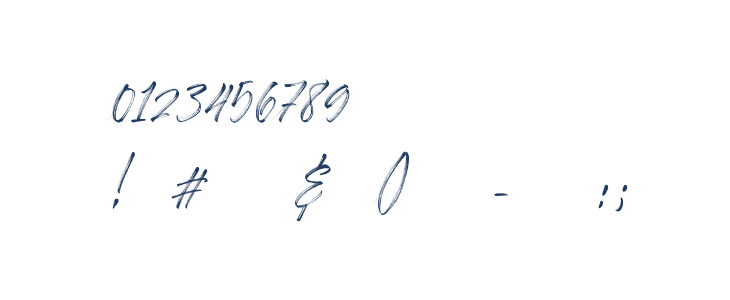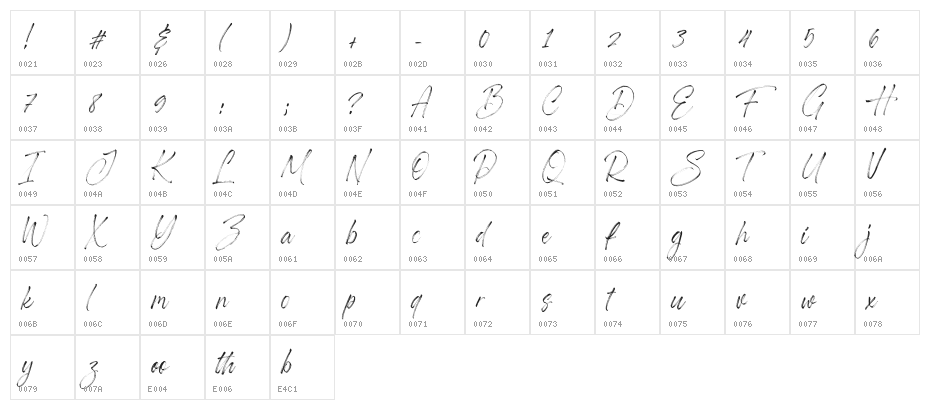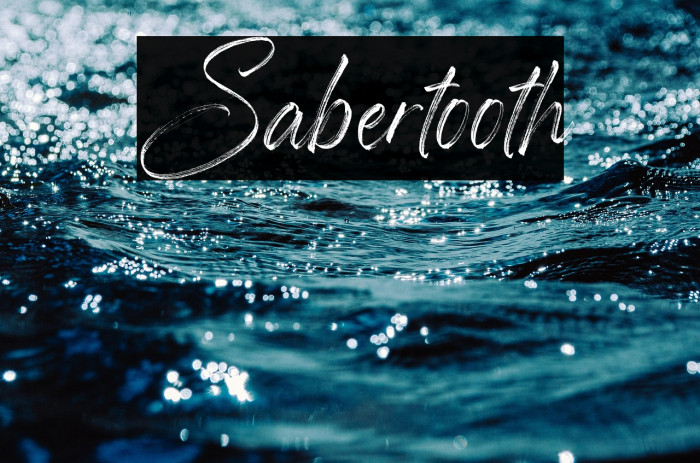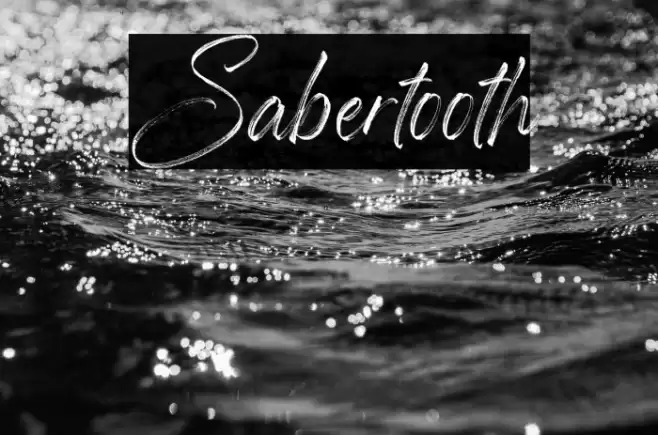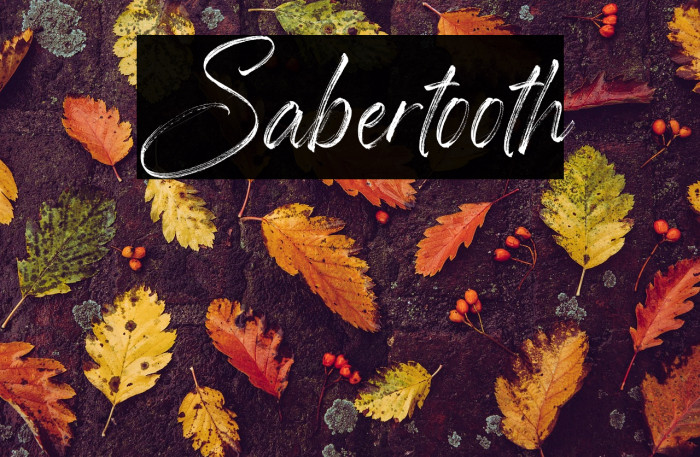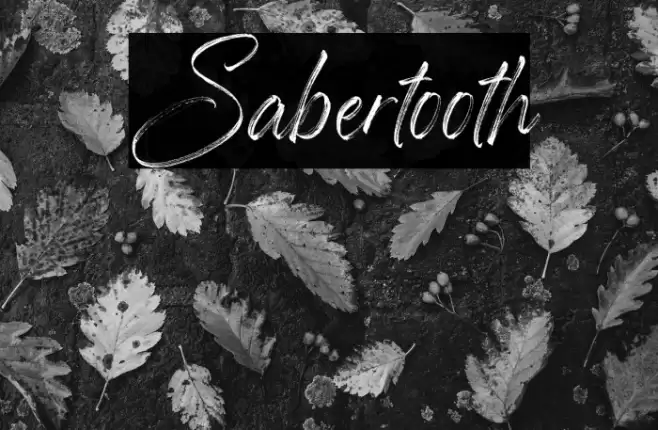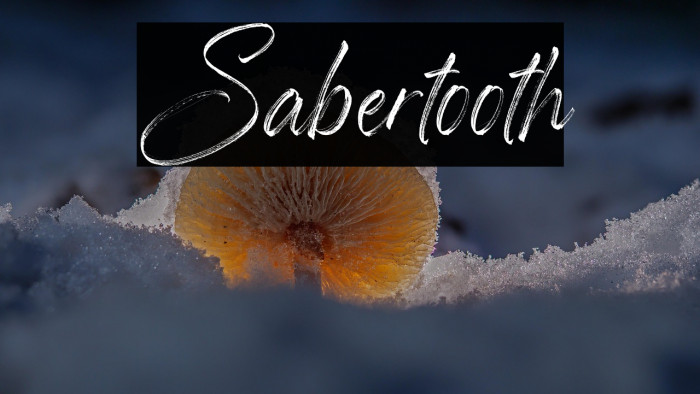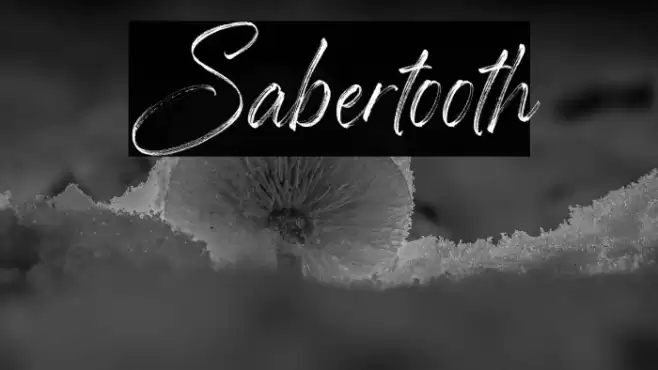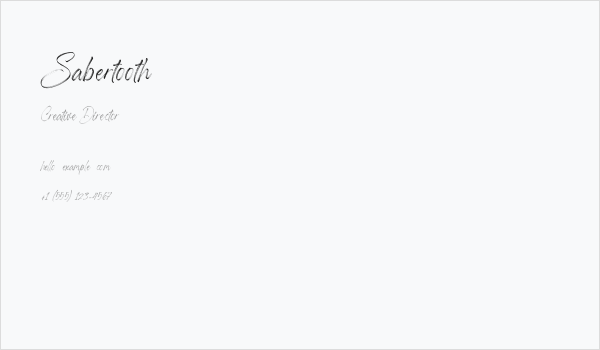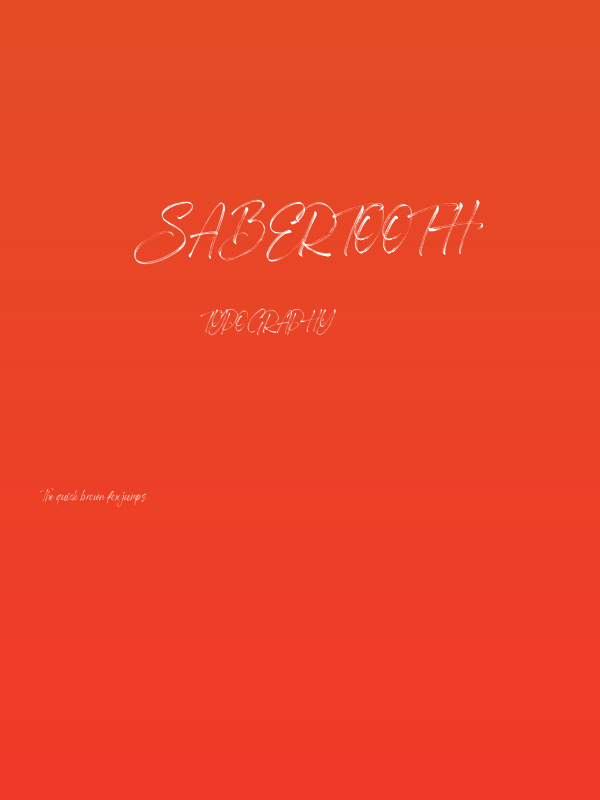
Sabertooth Font
Sabertooth Description
This font exhibits a dynamic and expressive handwritten style, characterized by its fluid and cursive letterforms. The strokes are varied, with a noticeable brush-like texture that adds a sense of movement and energy. The uppercase letters are bold and sweeping, while the lowercase letters maintain a consistent flow, enhancing readability. Numbers and special characters are crafted with the same artistic flair, ensuring a cohesive look across all elements. The overall impression is one of creativity and elegance, making it suitable for projects that require a personal touch.